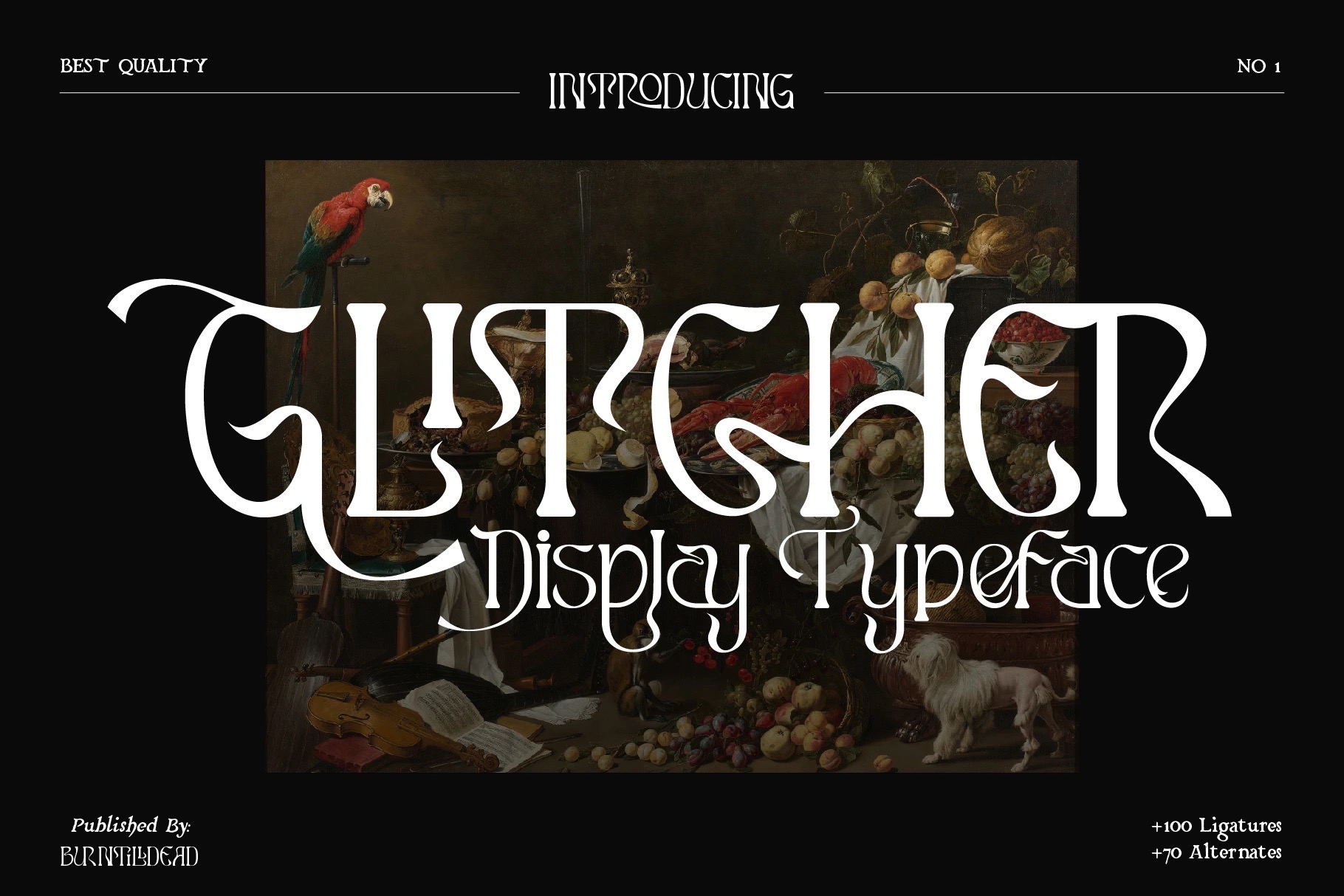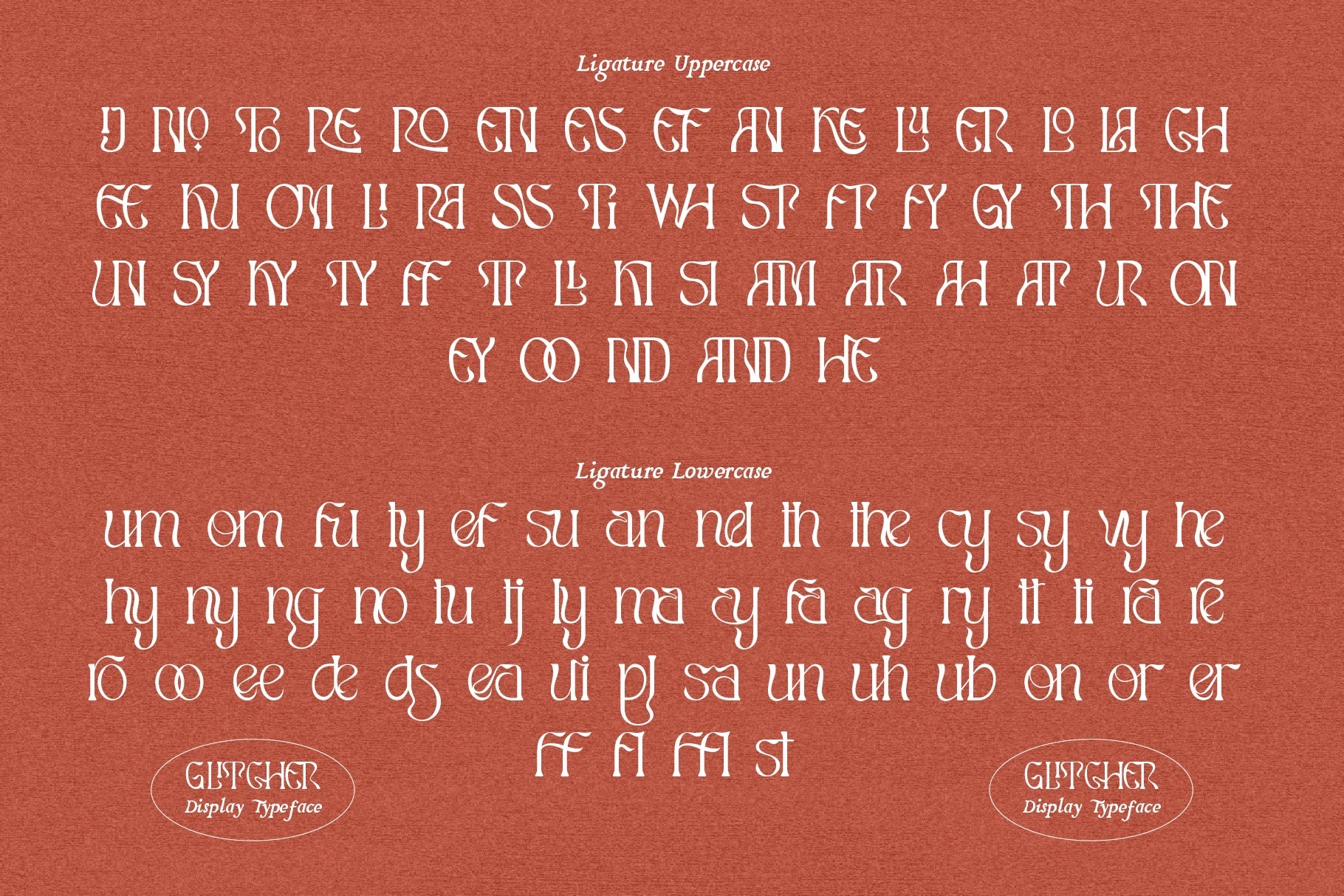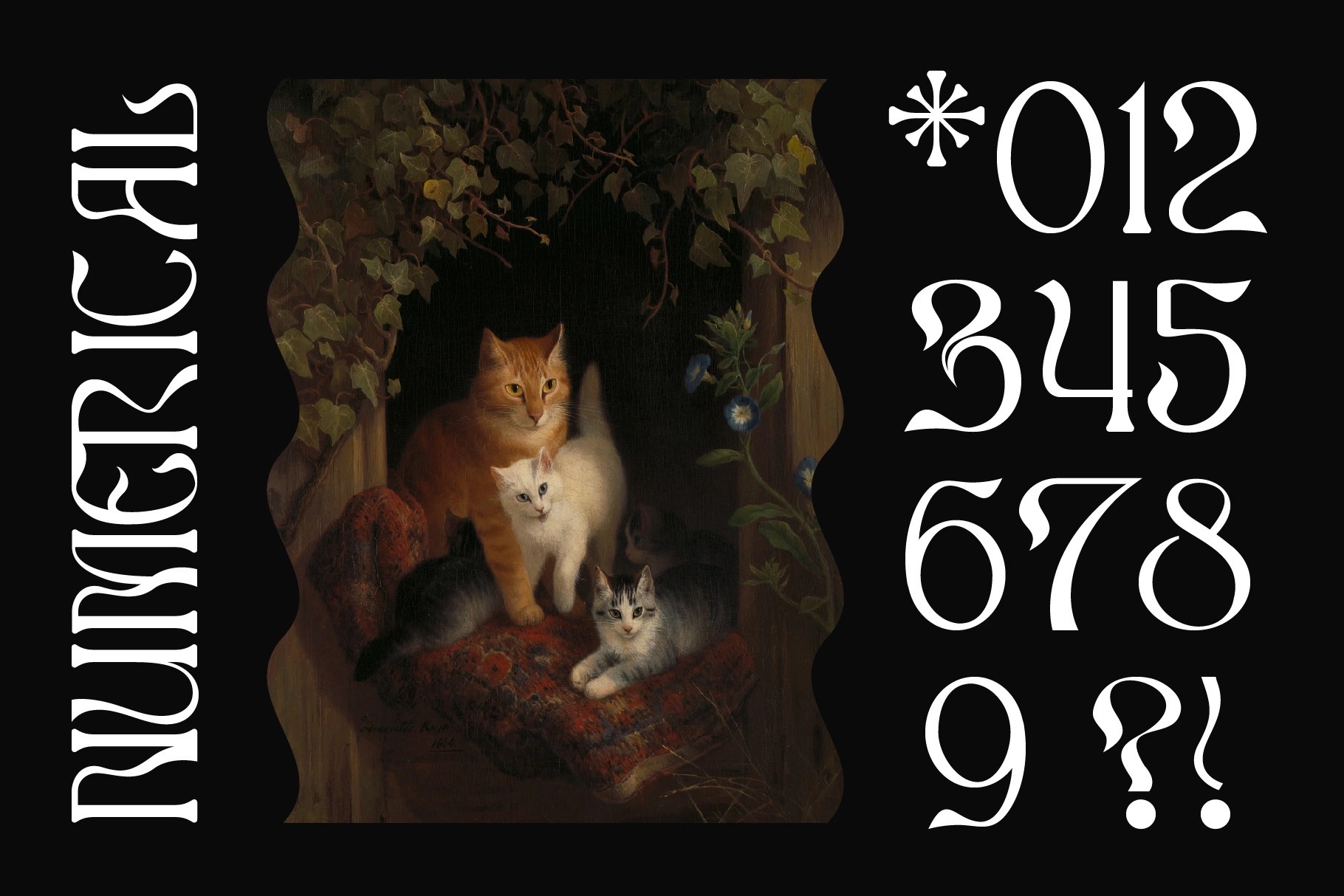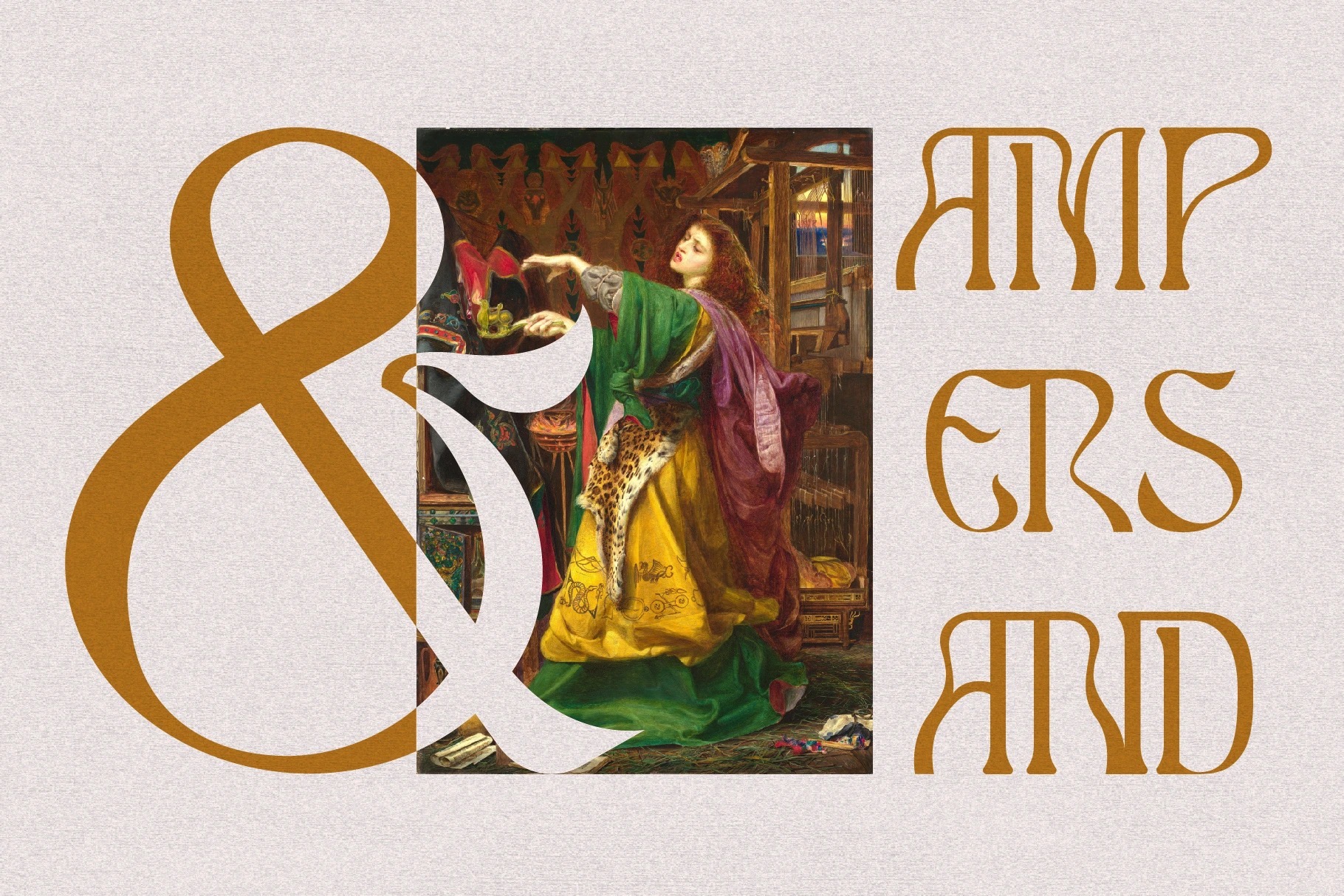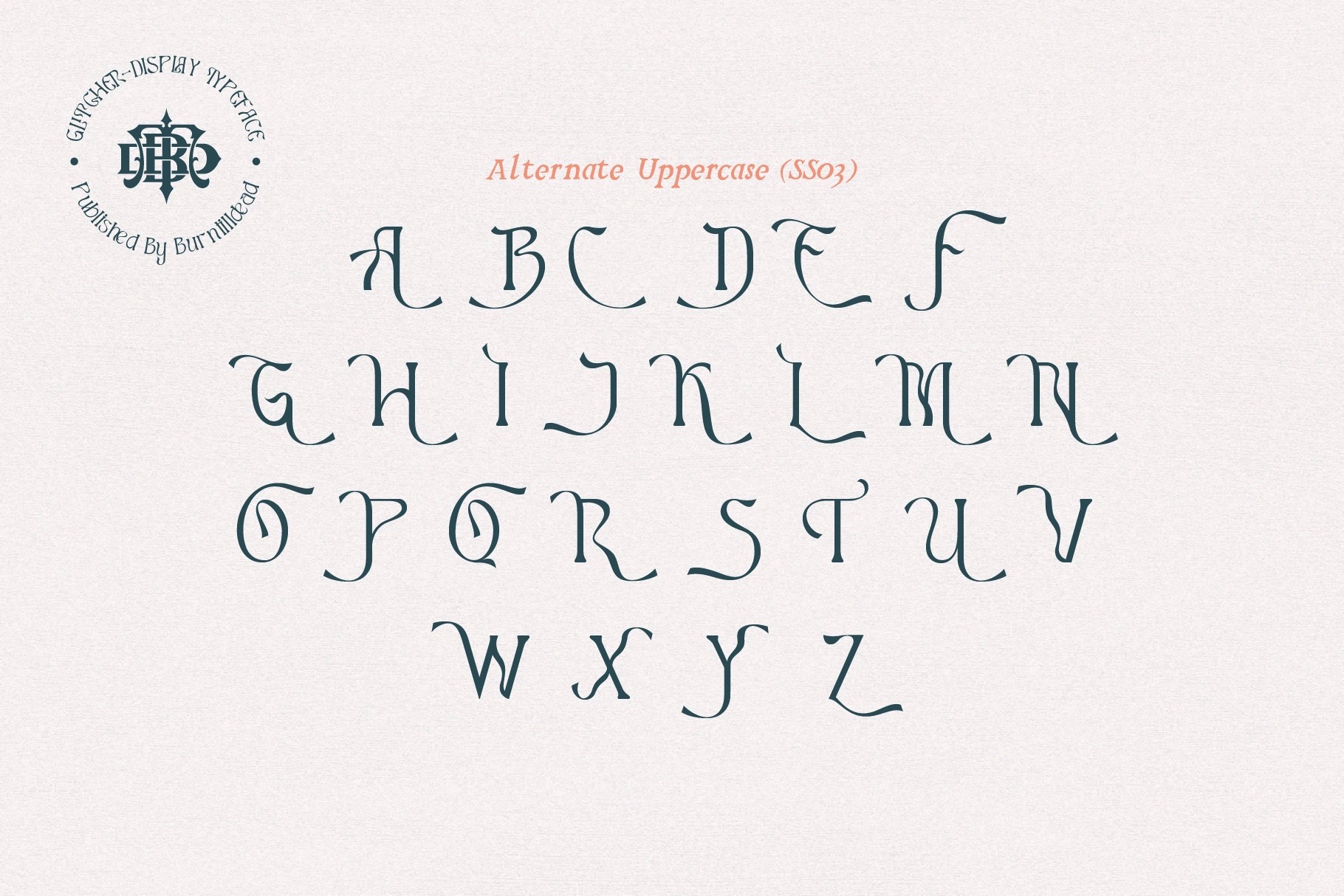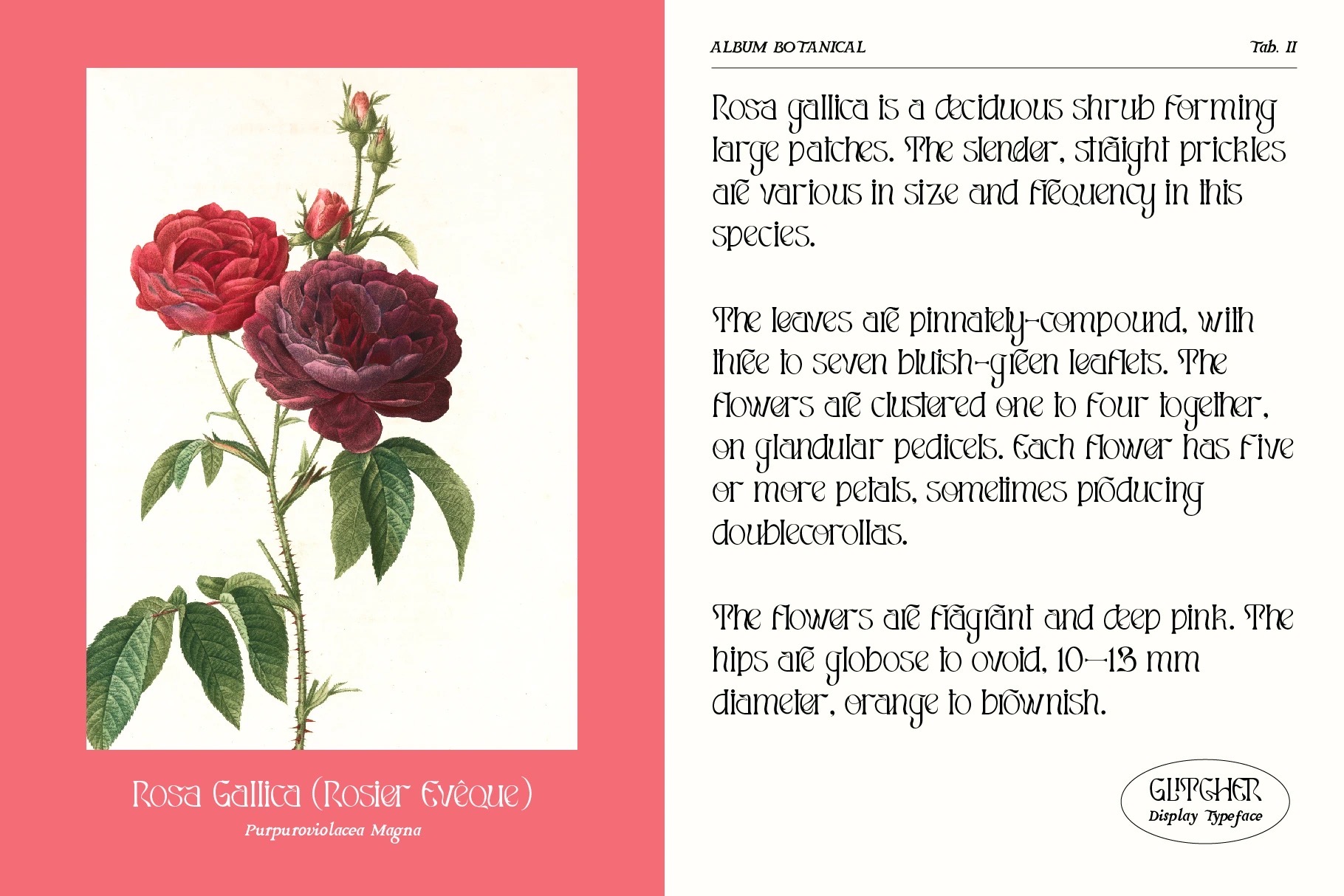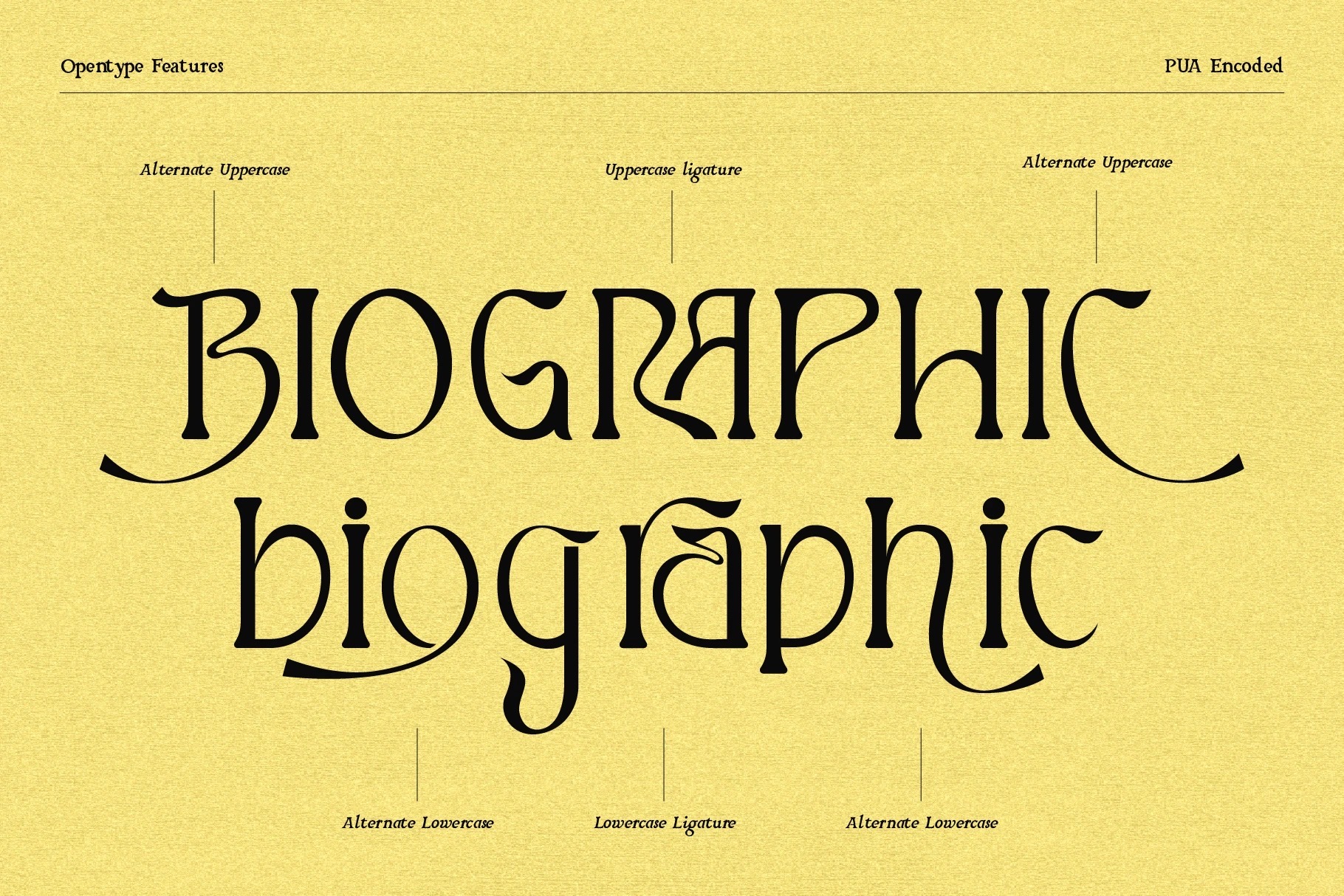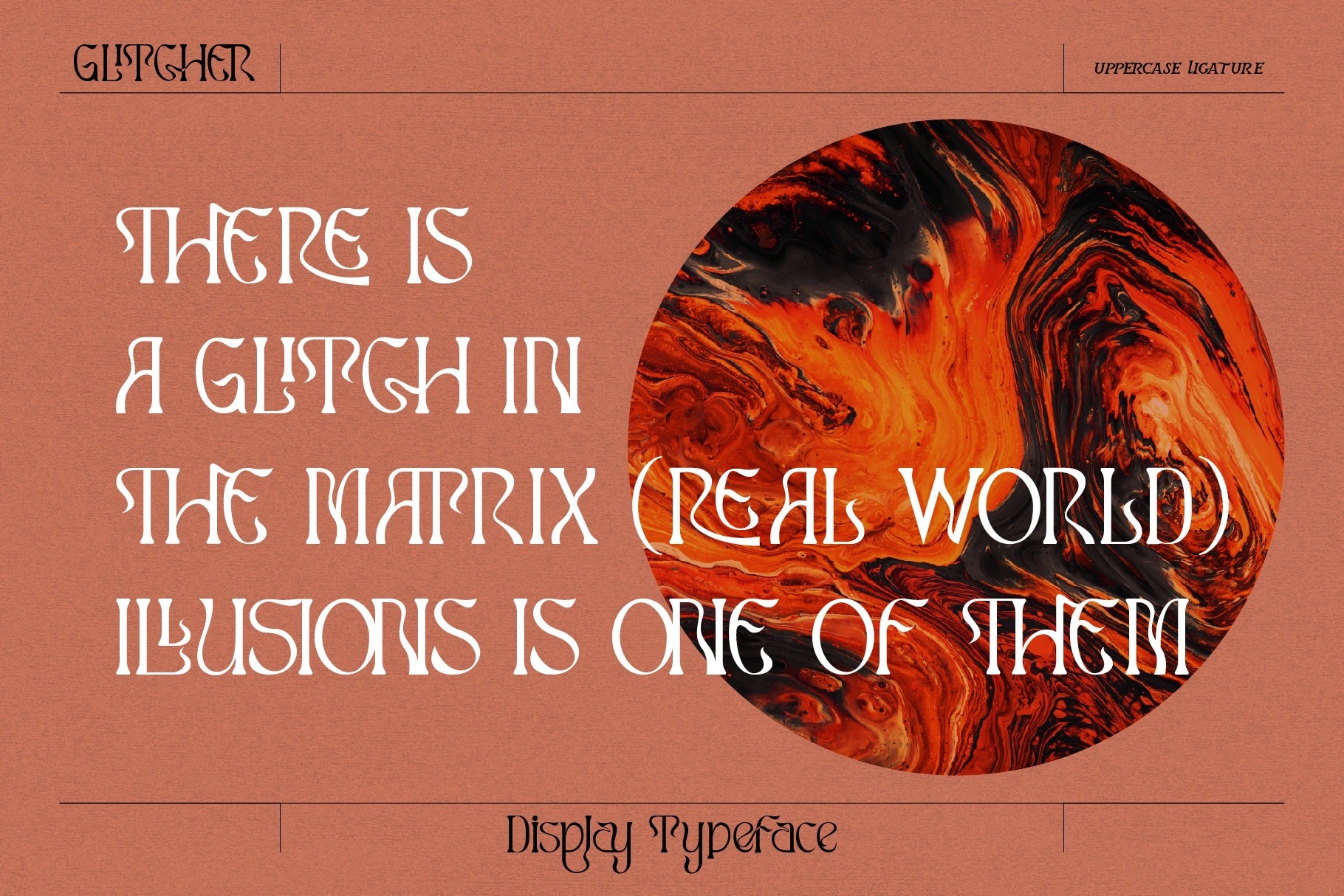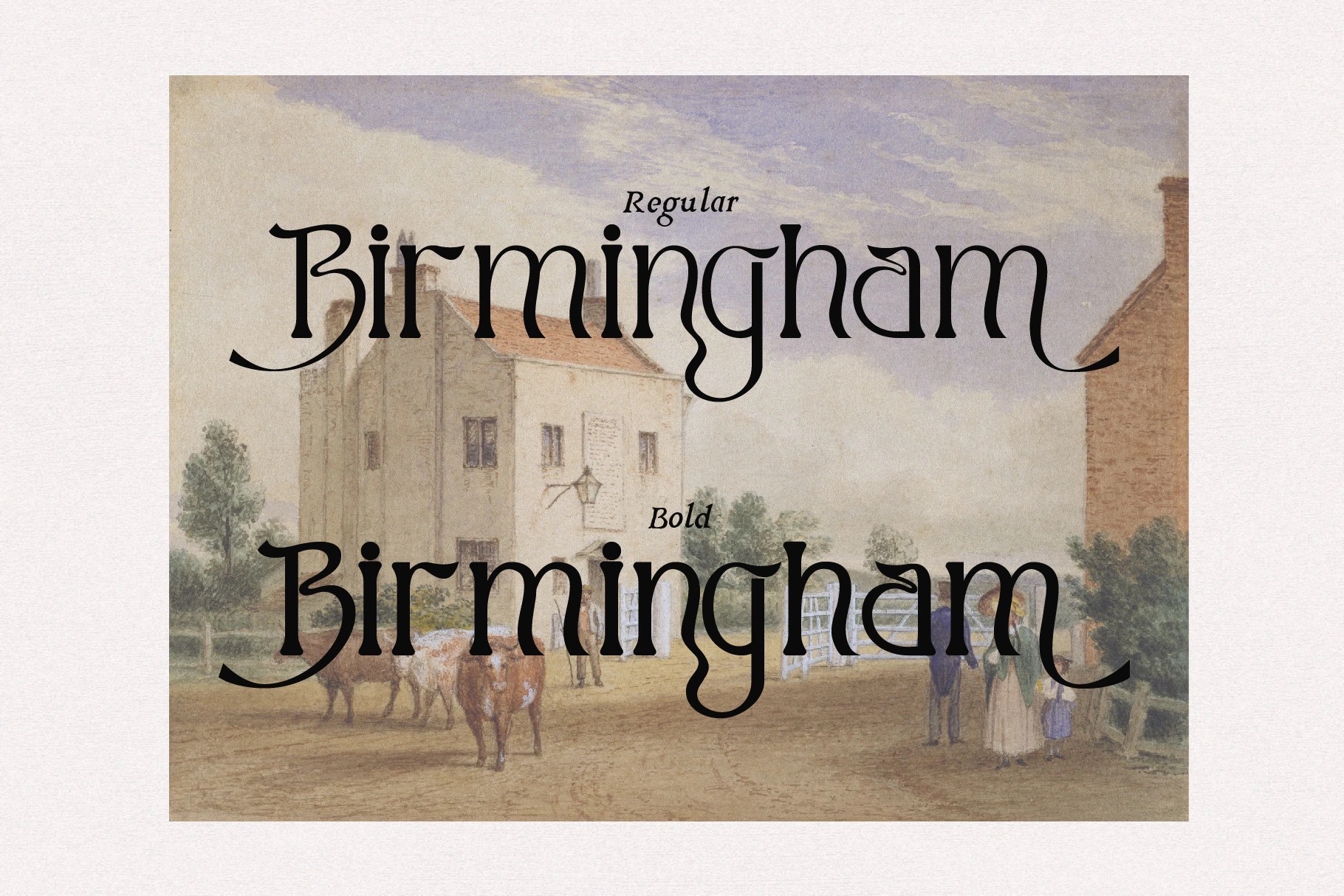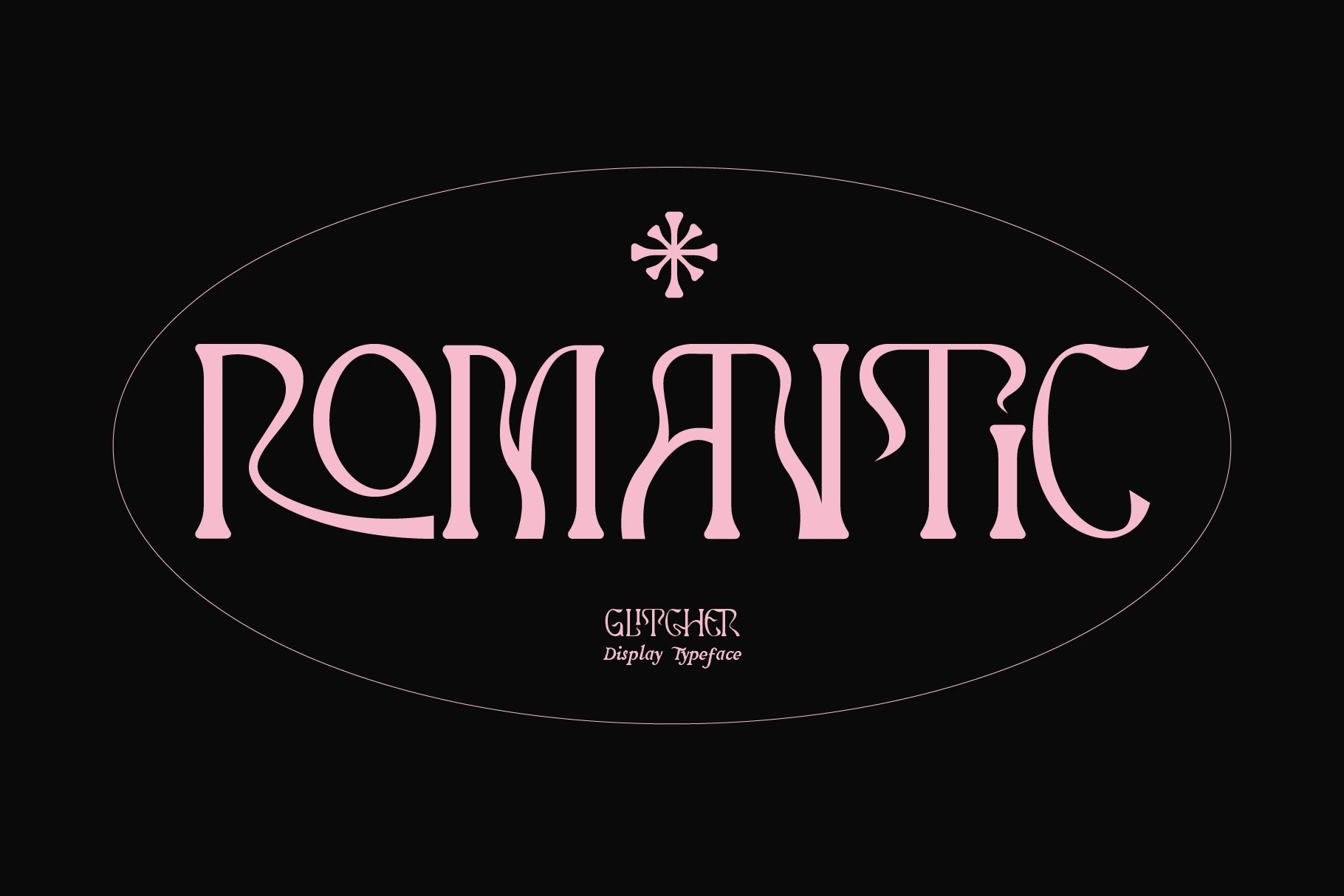
- Glitcher
Proudley present “Glitcher” typeface. Powered with +100 ligatures to bring fluent combination & +70 alternate characters to get dynamic & more aesthetic looks.
Perfect and suitable for branding, headline, logotype, sticker, editorial design, and etc.